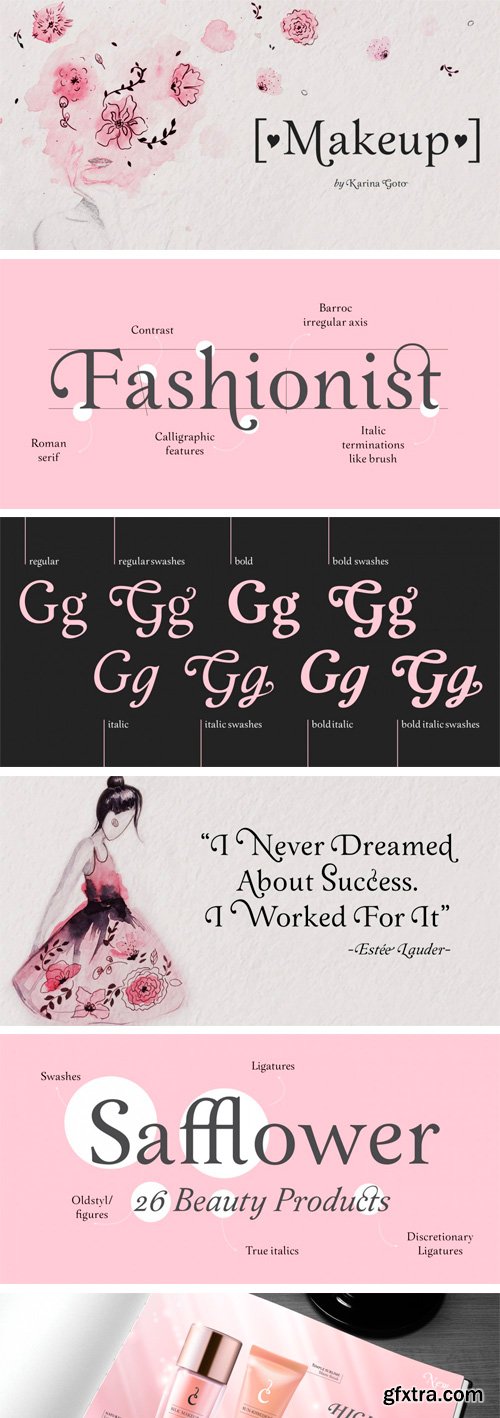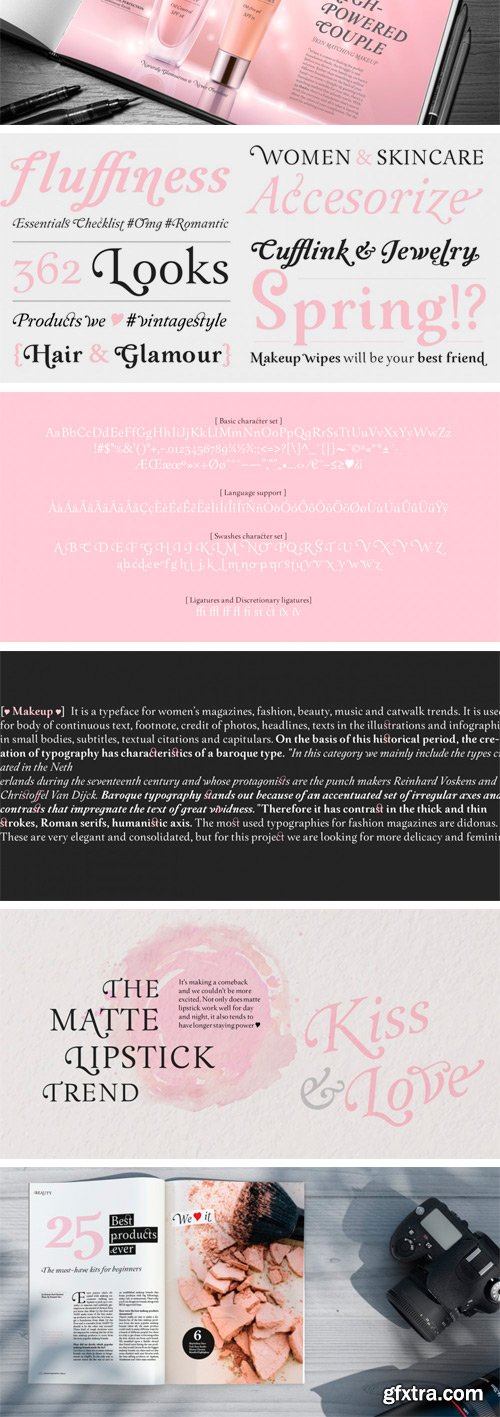
Makeup Font Family
Just Makeup: a typeface with female personality designed for editorial use. “The first case in which appeared a fashion content in a magazine was in 1672 in the magazine Le Mercure Galant, which was a magazine of entertainment and varied content, including fashion. But the first illustrated and specialized magazine was Le Journal Des Dammes Et Des Modes, created in 1797. “ (Fashion Trends, 2011).
Makeup was inspired by baroque typography with its accentuated play of irregular axes and important contrasts, admiring the work of dutch punch makers like Reinhard Voskens and Christoffel Van Dijck. Therefore this typefaces has contrast in the thick and thin strokes, Roman serifs and humanistic axis. In this typeface we weren’t looking for a strict baroque revival, but rather a new look with the humanistic characteristics of handwriting with a brush as a differential. Makeup comes in four styles to cover as much design needs as possible, with several OpenType features such as: ligatures, swashes, true fractions, old style numerals and stylistic sets.